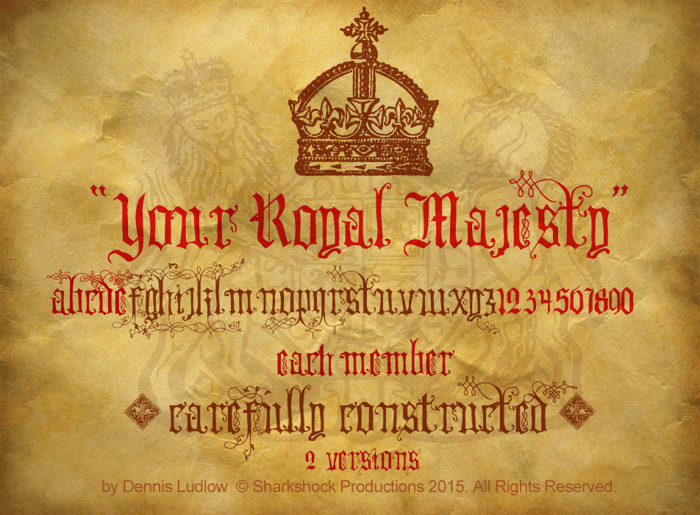
Your Royal Majesty Font
Fancy Style
basic puntucation is present, most of the rest is replaced by symbols, crests, flags, crowns, and several other decorative graphics throughout the era. There are actually two different
versions: "Your Royal Highness" is similar but omits pretty much 99% of the decorative lines found on the lowercase ascenders and descenders and contains full punctuation. This version is only
It's beautiful, but doesn't play well with MS Word. Word's Line Spacing options allow me to increase the space on the top or bottom of a line, but not both, so I always have either the top or bottom of this font chopped off.
I absolutely Love this font it's like a fairy tale books writing x